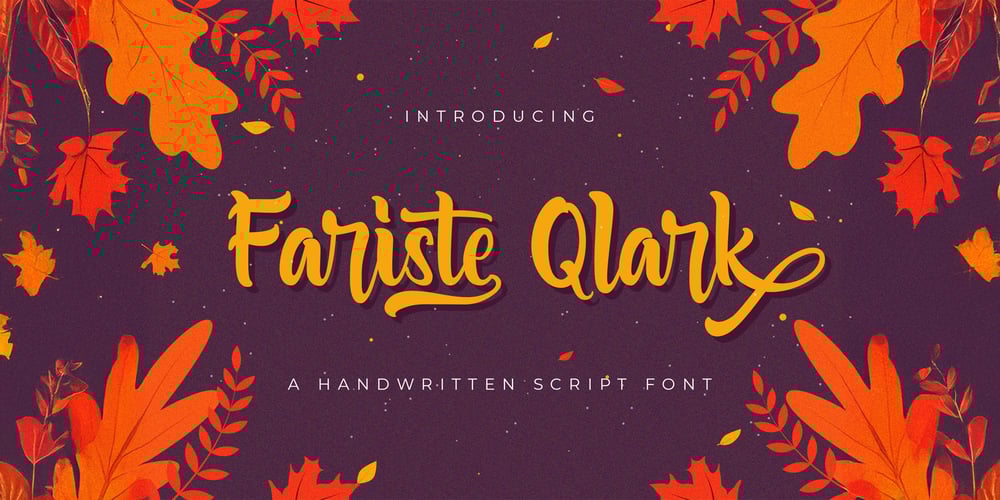
Fariste Qlark Font Family was designed by Virgiawan Listanto and published by Stringlabs Creative Studio. Fariste Qlark contains 1 styles and family package options. Fariste Qlark is a distinctive and modern handwritten font that captures the essence of creativity and elegance. With its playful yet refined strokes, this font offers a perfect blend of personality and readability, making it ideal for a variety of design projects.